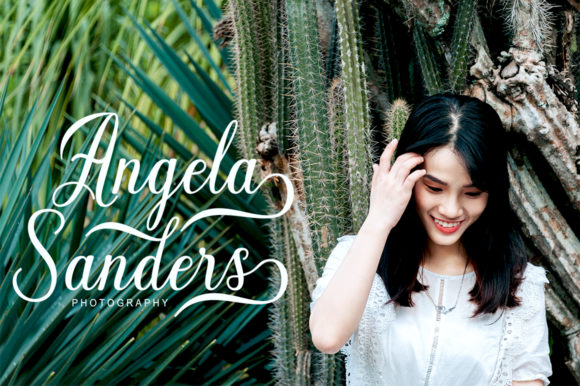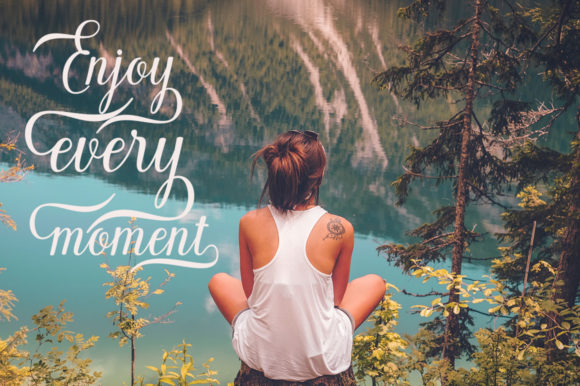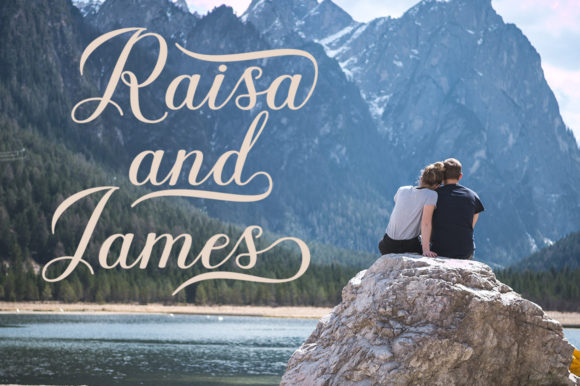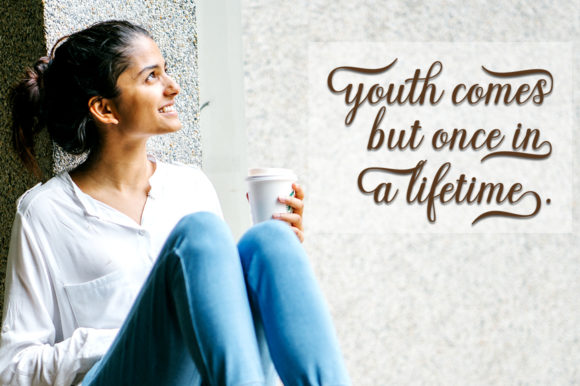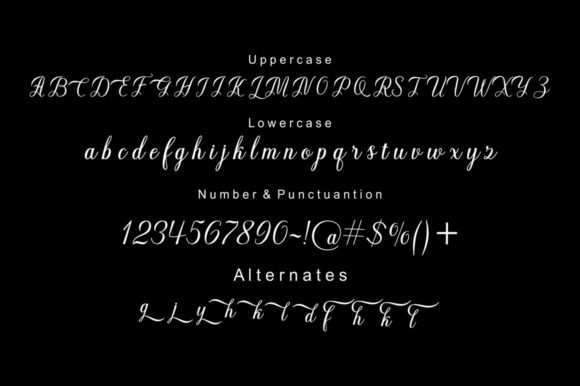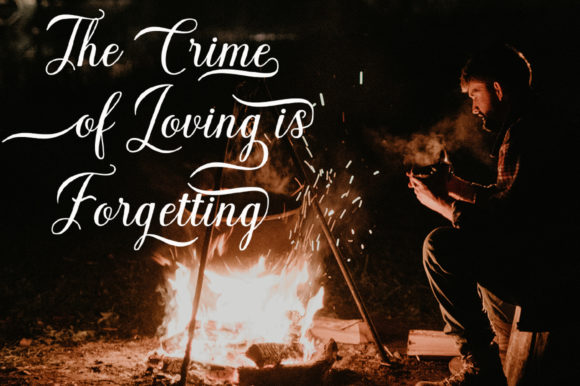
Kathyna Script Font
About Kathyna Script Font
The Kathyna is a classic typeface with a decorative modern twist. It has beautiful elegant letters which will give your design an upscale and chic look.